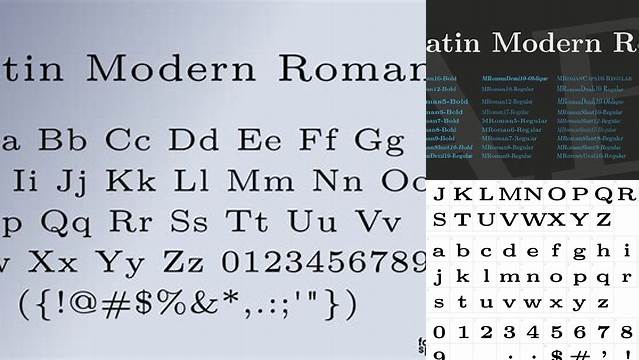
Latin Modern Roman Font: Origins, Design, And Uses
Latin Modern Roman: A Deep Dive into a Timeless Font
Hey guys, let's talk about the Latin Modern Roman font! It's a real classic, and if you're into typography, you've probably bumped into it. But maybe you're wondering, "What's the big deal?" Well, buckle up, because we're about to take a deep dive into this amazing typeface. We'll explore its origins, design, and why it's still a go-to choice for designers today. The Latin Modern Roman, often referred to as just "Latin Modern," isn't just another font; it's a meticulously crafted digital revival of the renowned Computer Modern fonts. The main intention behind its creation was to provide a free, high-quality, and scalable font family that could serve as a modern alternative to the original. This font family is the digital incarnation of Donald Knuth's Computer Modern. It’s designed to be a complete set of fonts that cover a wide range of typographic needs. It includes a variety of weights, styles, and special characters, making it extremely versatile. So, if you're a designer, a writer, or even just a font enthusiast, understanding Latin Modern Roman is definitely worth your time.
Origins and Development
So, where did this awesome font come from? The story of Latin Modern Roman begins with its predecessor, Computer Modern, created by the legendary Donald Knuth. Knuth, a computer scientist and the creator of the TeX typesetting system, designed Computer Modern to have a consistent and high-quality look when typeset using TeX. Computer Modern was Knuth's baby, crafted with precision to perfectly render mathematical and scientific notation. It had a clean, elegant design that was easy to read and looked great in print. But over time, there was a need for a modern, more comprehensive version. That’s where the Latin Modern project steps in. This project aimed to provide an updated and extended version of Computer Modern. The Latin Modern fonts were developed to be compatible with modern operating systems and to include a wider range of characters, including those needed for languages beyond English and mathematical symbols. The goal was to make a complete, high-quality font family freely available to everyone. Think of it as the evolution of a classic, the next step in a font's journey. The development of Latin Modern Roman involved a team of typographers and font designers who worked together to meticulously redraw and expand the Computer Modern glyphs. They expanded the character set to include support for a wider range of languages, including those using the Latin, Greek, and Cyrillic alphabets. This expansion made the font usable for a broader range of documents and applications. These fonts, like its predecessor, were designed with scalability in mind. This means the fonts look great at any size, from tiny footnotes to massive headlines. This is super important for digital design, ensuring your text always looks crisp and clean.
Design and Characteristics
Alright, let's get into what makes this font tick. Latin Modern Roman is a serif typeface, meaning it has those little strokes, or serifs, at the end of the letters. Think of it as the stylish details on a classic suit. These serifs add to its readability, making it a great choice for body text. It’s got a classic, elegant feel, perfect for anything from academic papers to novels. The design of Latin Modern is rooted in the traditions of classical typography. It takes its inspiration from old-style fonts, but with a modern twist. It's got a good balance of grace and clarity, making it super easy on the eyes. The design is all about balance, with a blend of traditional elements and modern sensibilities. It's got a subtle elegance that doesn't shout for attention, which is ideal for long-form text. The design of Latin Modern Roman is optimized for legibility. The shapes of the letters are carefully crafted to make them easily distinguishable, even at small sizes. The font's x-height (the height of the lowercase 'x') is relatively high, which also helps with readability. This is great news if you want your readers to actually, you know, read what you've written! The font family includes a wide range of weights and styles. You can find everything from light and regular to bold and italic. This flexibility gives you a ton of creative options. It means you can use it for headlines, subheadings, and even emphasize important words within your text. These various styles provide a consistent aesthetic across your design projects.
Usage and Applications
So, where can you actually use this font? This is where things get fun! Latin Modern Roman is super versatile and can be used in a ton of different contexts. Because it is a comprehensive font family, it can be used for a variety of design projects. Its readability makes it a popular choice for print and digital applications alike. You can use it in academic papers, books, and articles. It's also great for creating websites, documents, and presentations. It is particularly well-suited for long-form text, thanks to its readability and classic feel. Its balanced design works well for both print and digital media. It also makes a great choice for branding and marketing materials. Whether you're designing a logo, a brochure, or a website, this font can give your brand a professional and polished look. Because it's a free and open-source font, it's accessible to anyone. This makes it a great option for both personal and commercial projects. You can download and use it without worrying about licensing fees. The font is compatible with most operating systems and software applications. This means you can easily incorporate it into your workflow, whether you're using Windows, macOS, or Linux. From academic publications to creative projects, Latin Modern Roman is a flexible and reliable choice for a wide array of uses. The font has become a staple in many fields, from academic publishing to creative design. Its clarity and elegance make it a top choice for various projects. The availability of numerous weights and styles adds to its adaptability. These variations make the font a versatile tool for enhancing the visual appeal of any project. So, whether you're a writer, a student, or a designer, Latin Modern Roman is a solid choice.
Advantages and Disadvantages
Let's talk about the good and the bad, the pros and cons! The big advantage of Latin Modern Roman is that it is free. Yes, you heard that right, free! This means you can use it for personal and commercial projects without any cost. It is a great option if you're on a budget or just want a high-quality font without spending a dime. This makes it ideal for students, startups, and anyone looking to enhance their design projects. It is designed to be extremely readable, even at small sizes. This is important for long-form text, ensuring your readers can comfortably read your content. Whether you're creating a book, a report, or a website, it is a great choice. Its extensive character set supports a wide range of languages. This makes it a versatile option for international projects. If you need to create documents in multiple languages, this font has you covered. It's easy to install and use. It works well with most operating systems and software applications, making it seamless to integrate into your workflow. The font is not without its potential downsides. One downside is that, being based on Computer Modern, it may feel a bit dated to some. While it has a classic and elegant design, it may not be the best choice if you're looking for a more contemporary or trendy look. Some designers may feel that it lacks the personality of other fonts. It's a classic, safe choice, but it may not stand out as much as some of the more unique fonts out there. However, these drawbacks are minor compared to its many advantages. For most users, the pros far outweigh the cons. The font is a dependable, high-quality typeface with many benefits. It's an excellent choice for anyone seeking a legible and elegant font.
So, there you have it, guys! We've covered the ins and outs of the Latin Modern Roman font. It's a timeless typeface with a rich history, designed for clarity and elegance. From its origins in Computer Modern to its modern applications, it has a lot to offer. Whether you're a student, a writer, or a designer, this font is a solid choice. It's a free, versatile, and reliable option for all your typographic needs. If you're looking for a classic, readable font that's easy on the eyes, definitely give Latin Modern Roman a try. You might just find it becomes your new go-to. This versatile font is a testament to quality design and enduring appeal. So go ahead and experiment with it, and see for yourself why it's a favorite among typographers worldwide.